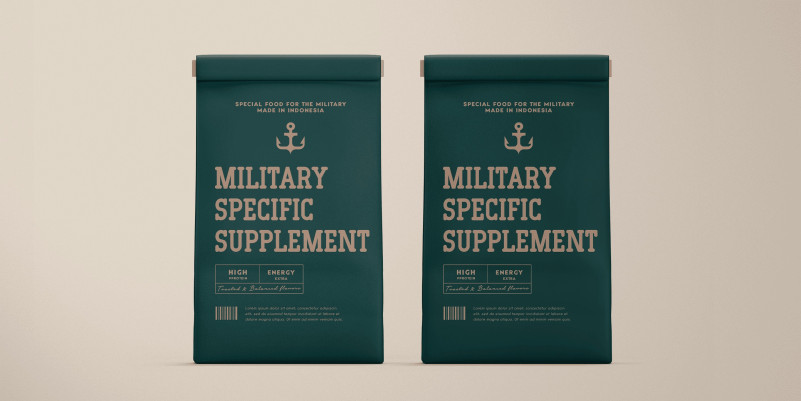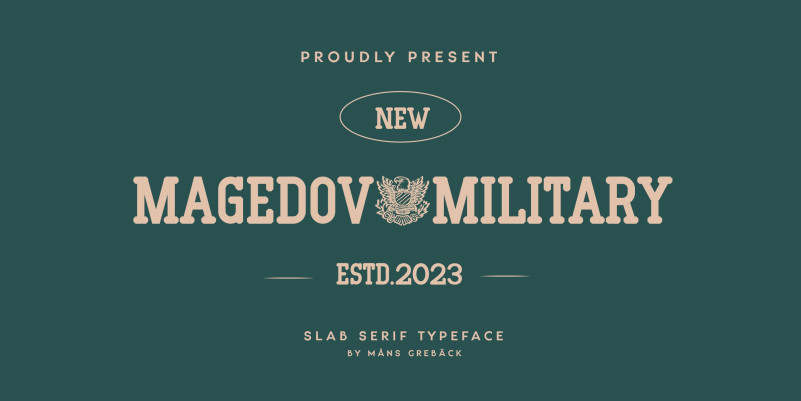
Magedov Military Font
Magedov Military Font, dIts optimum legibility, clean, and geometric look is perfect branding, brochures, greeting cards, quotes, posters, stationary, design titles, blog headers, and much more.
Use the parenthesis symbols ( ) [ ] { } to make decorative elements.
Example: United]States